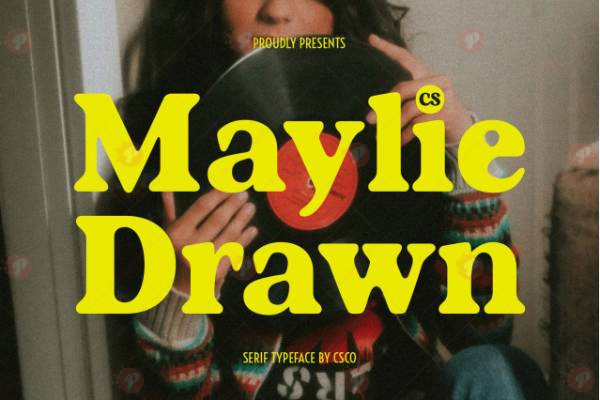
The CS Maylie Drawn Font is a hand-drawn and artistic typeface, perfect for posters, social media graphics, logos, branding, greeting cards, and display typography. Its organic, playful style adds personality and a handcrafted charm to your designs.
Ideal for digital and print projects, CS Maylie Drawn brings a unique, handcrafted feel, making your work stand out with creativity and flair.
Style: Hand-Drawn / Artistic / Display Typeface
Perfect for: Posters, Social Media Graphics, Logos, Branding, Greeting Cards & Display Typography
Add a handcrafted and artistic touch to your designs with the CS Maylie Drawn Font.